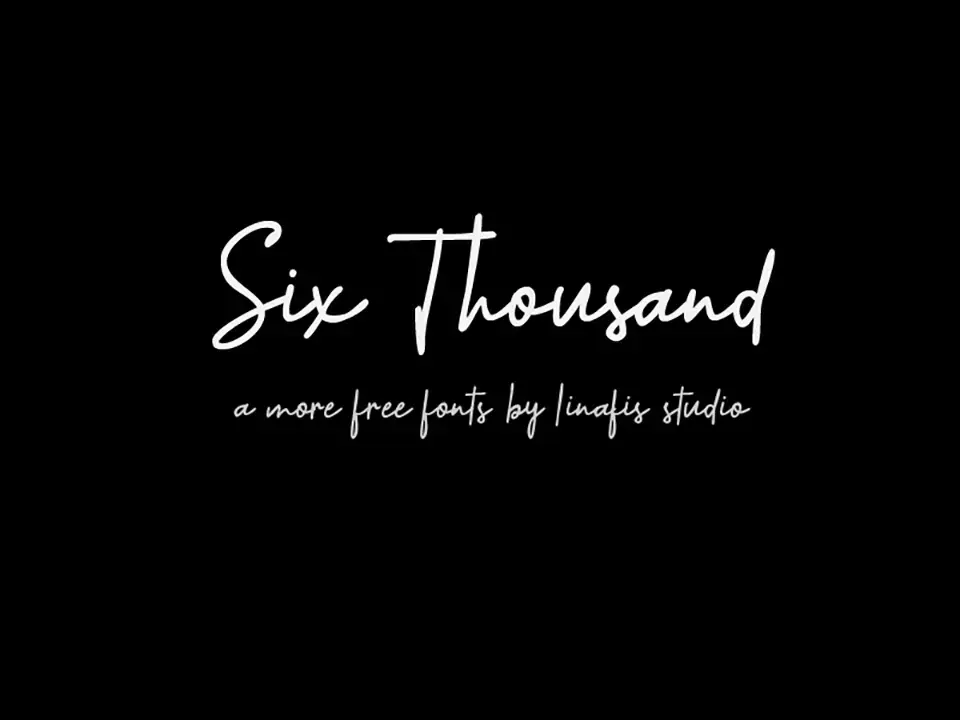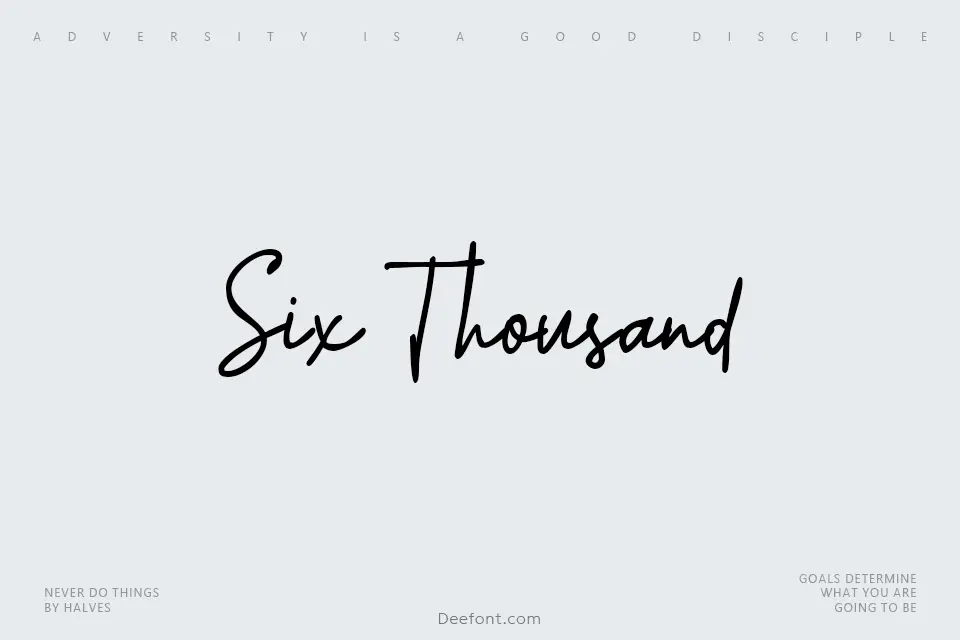
Six Thousand Font
Six Thousand is a sophisticated handwritten typeface that combines flowing elegance with contemporary simplicity. Featuring two complementary styles with smooth, uniform monoline strokes, this font delivers an organic, inviting quality perfect for personal and creative endeavors. The refined letterforms work beautifully for display purposes including posters, greeting cards, wedding invitations, branding applications, packaging design, and decorative headline compositions. Its modern yet approachable aesthetic makes it ideal for lifestyle brands, beauty products, stationery, and projects requiring a touch of sophisticated handcrafted charm.